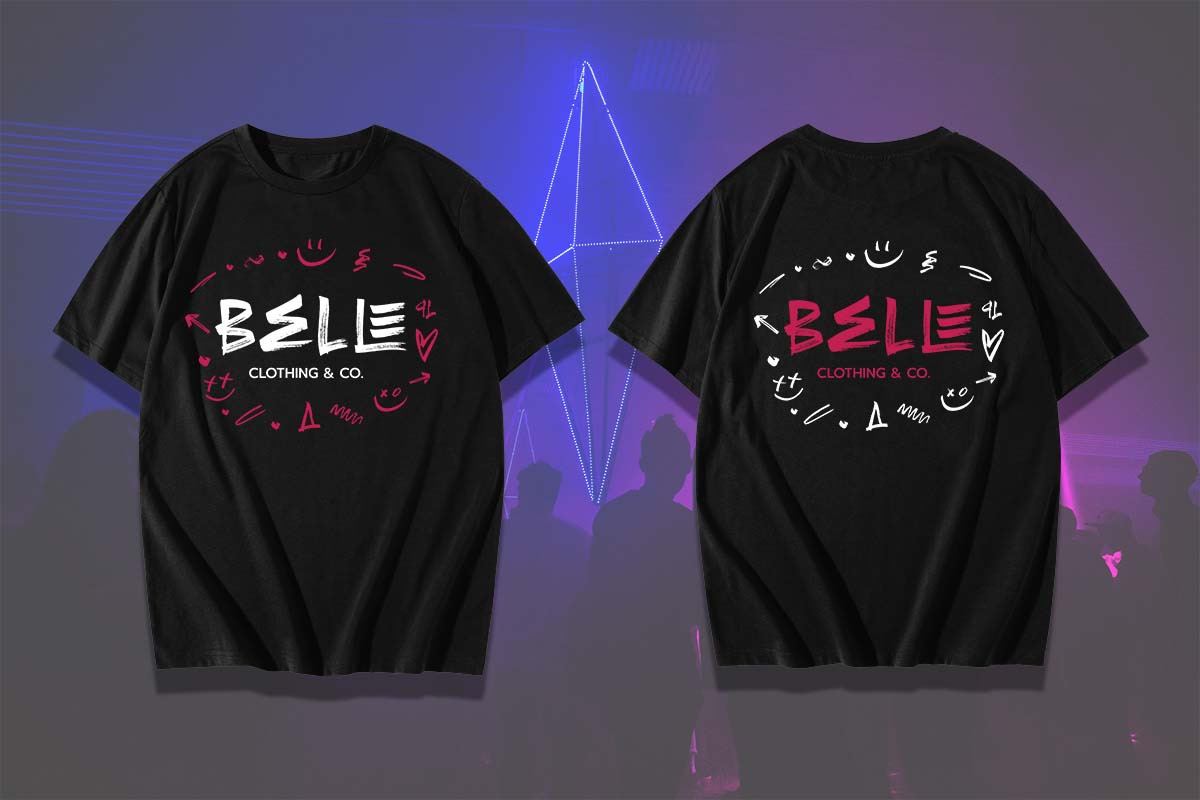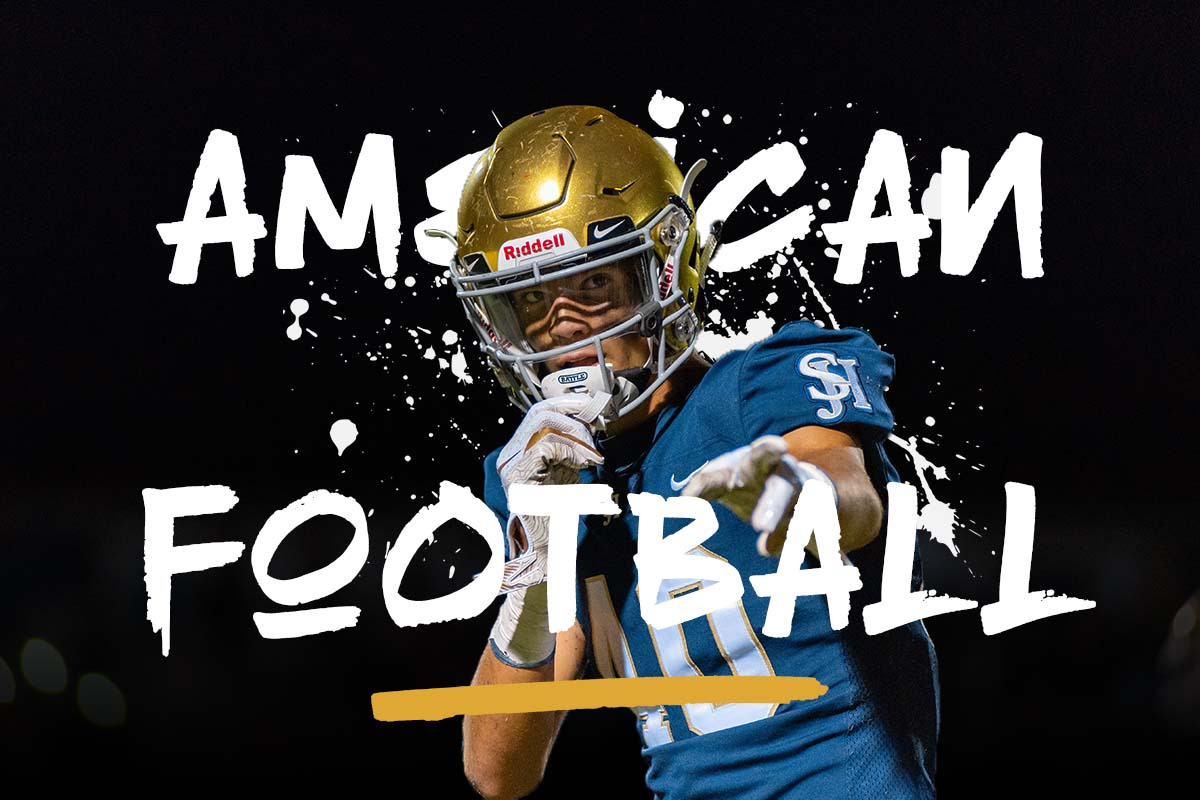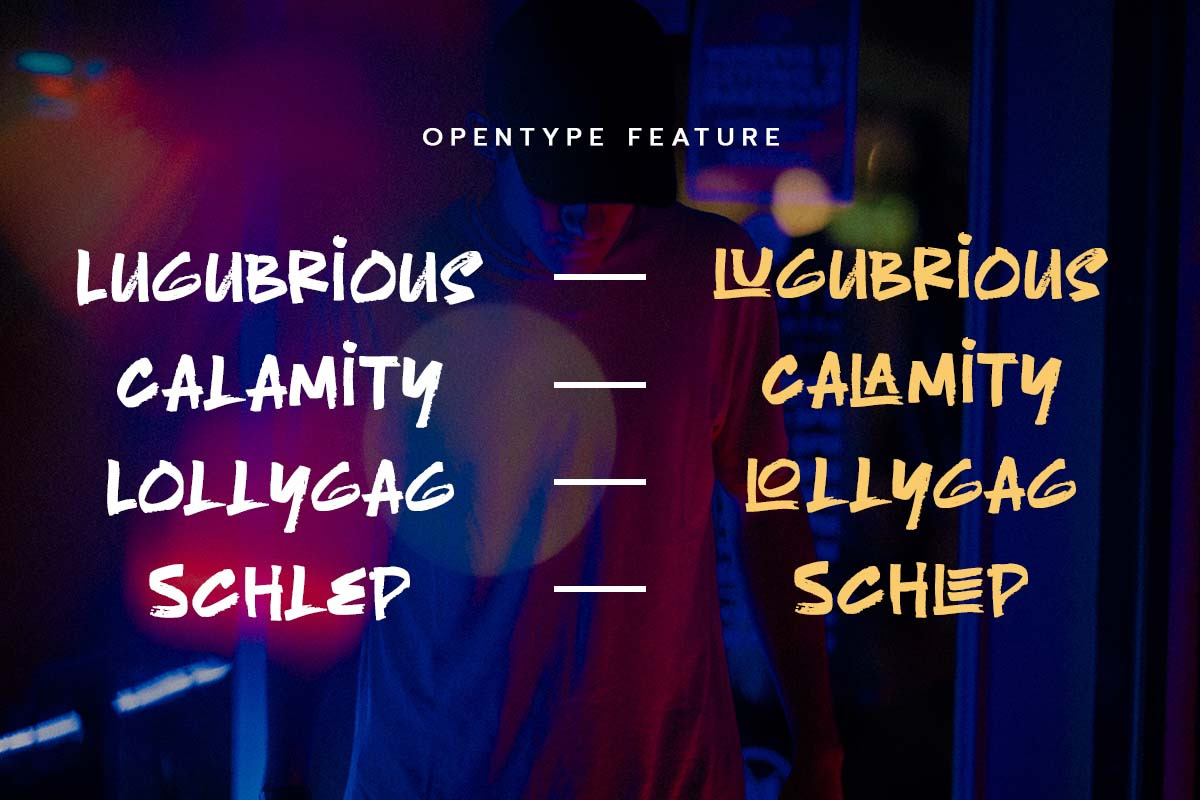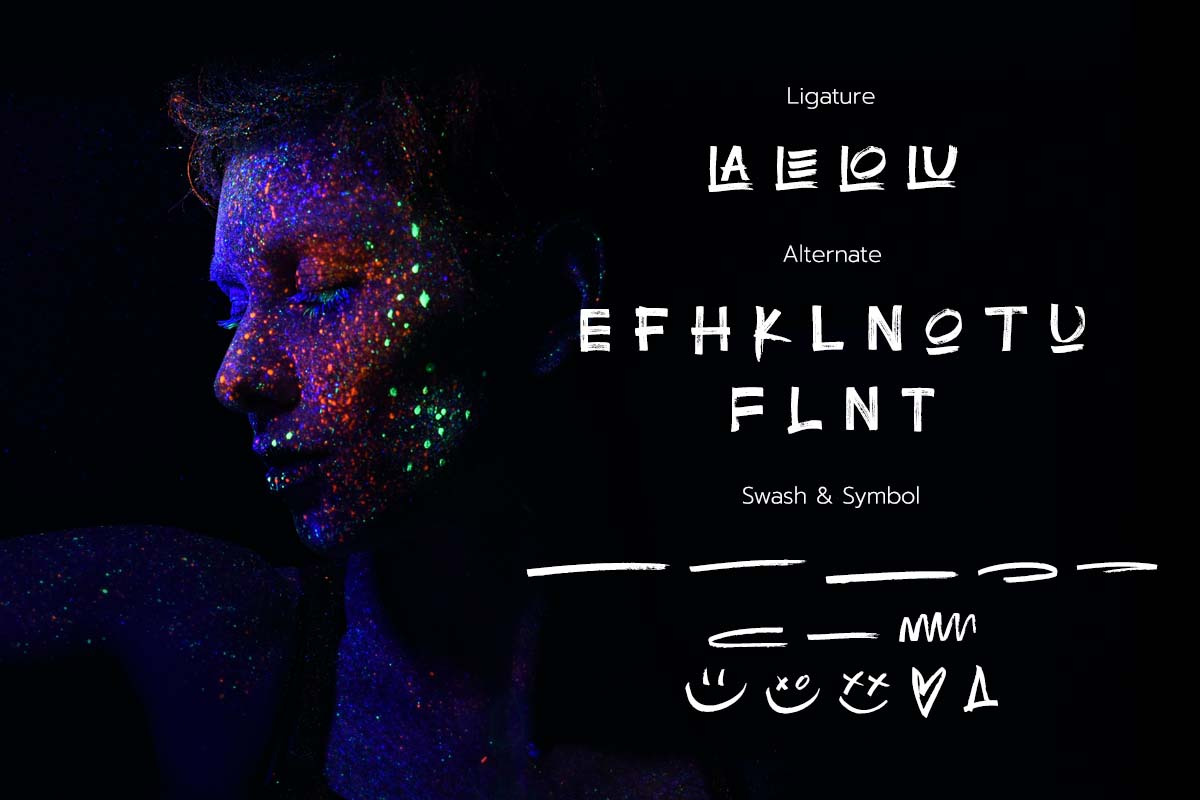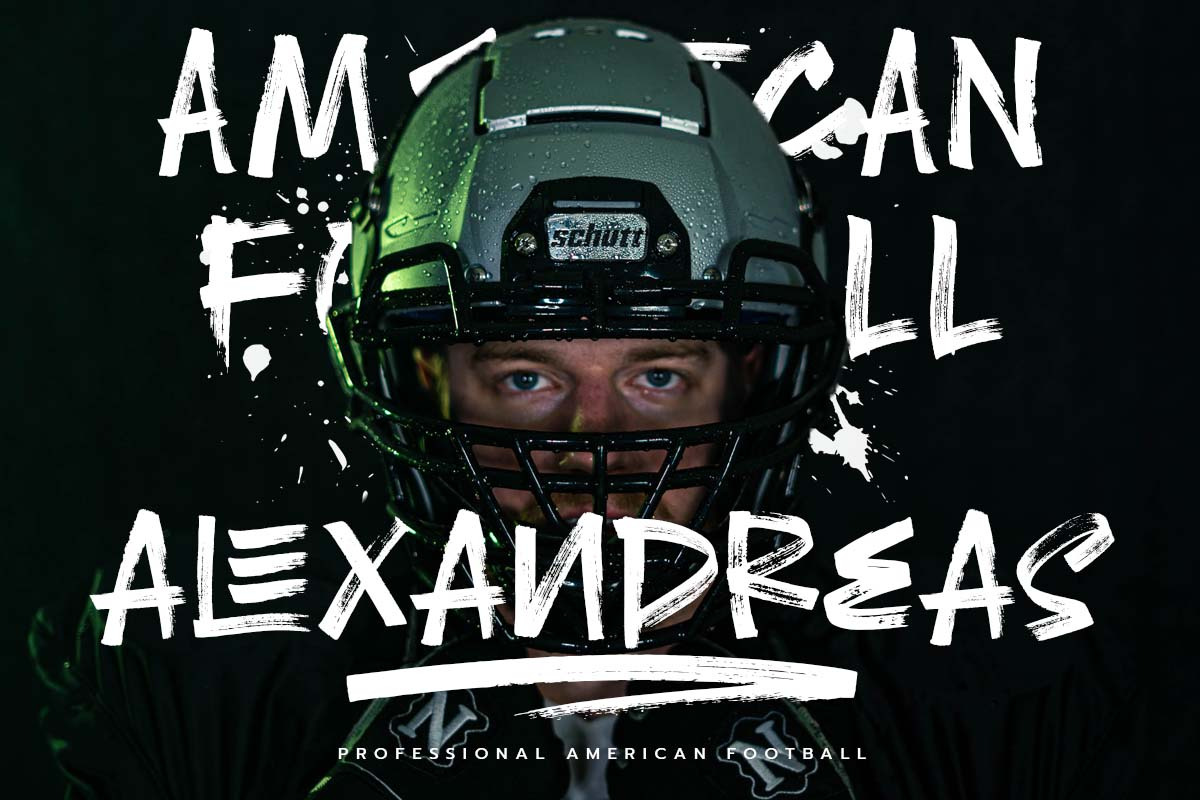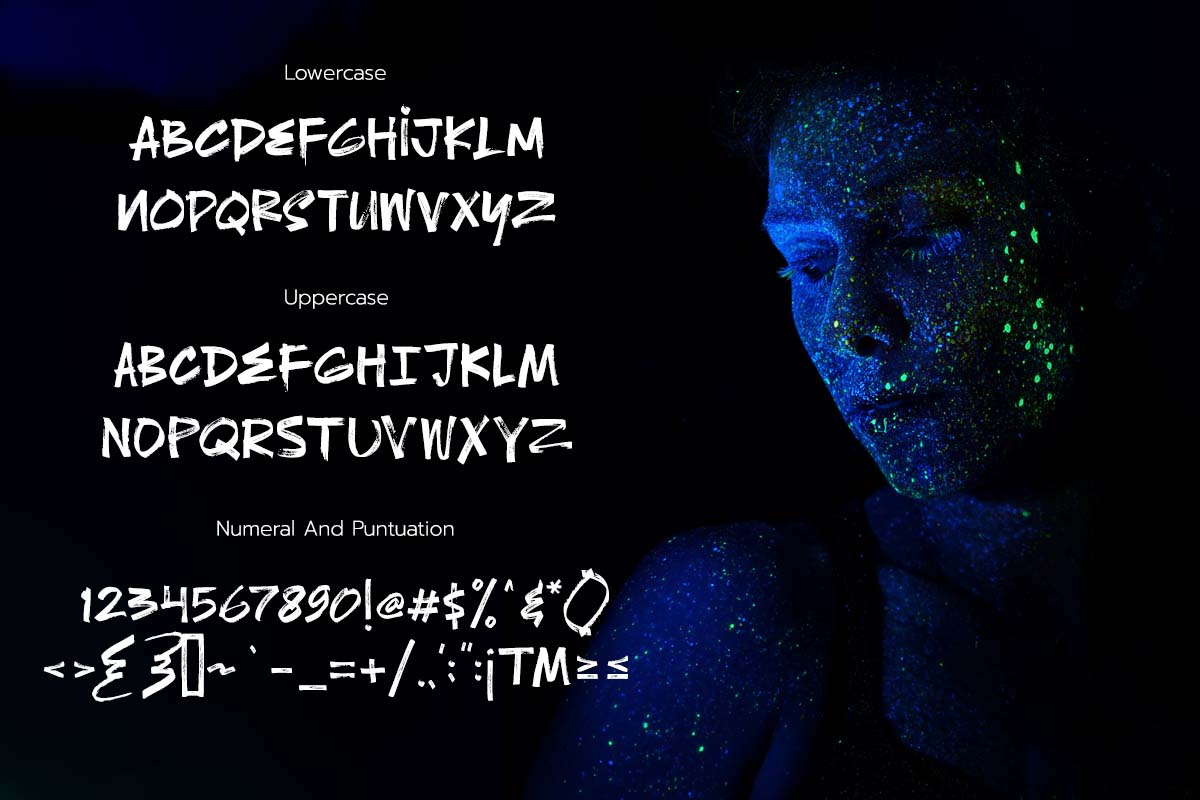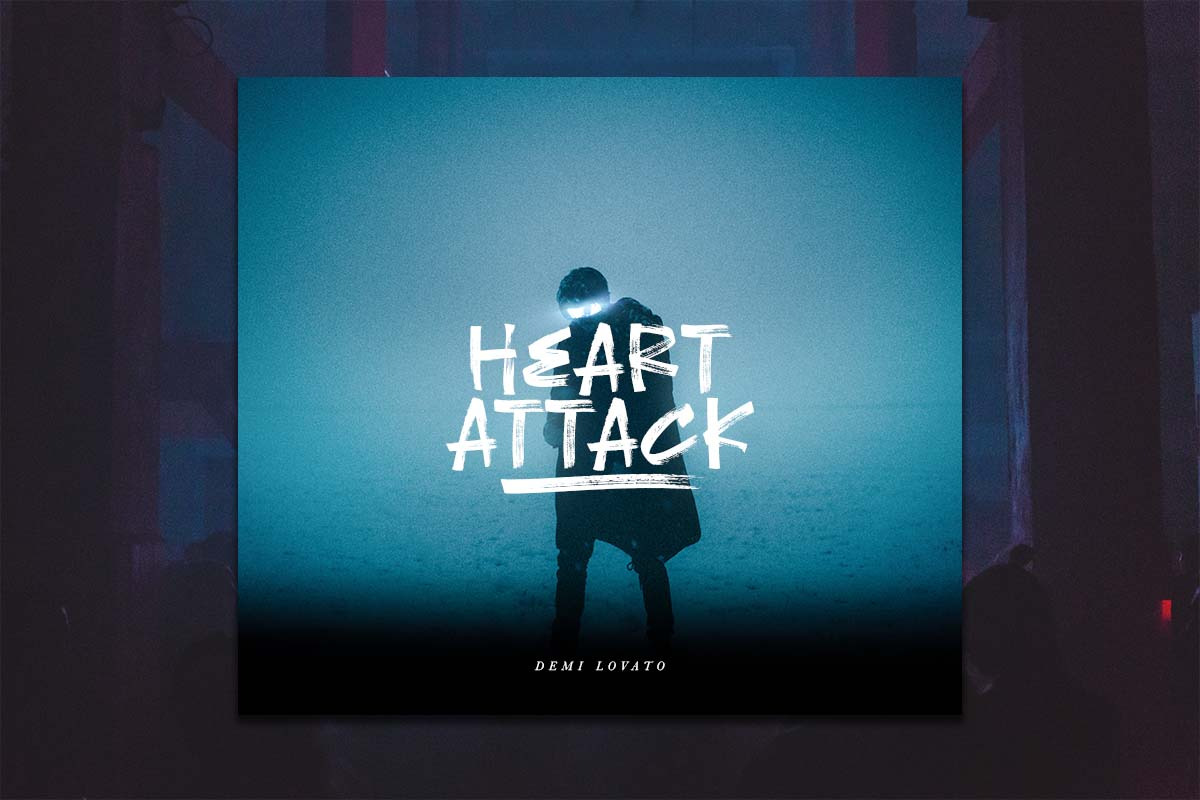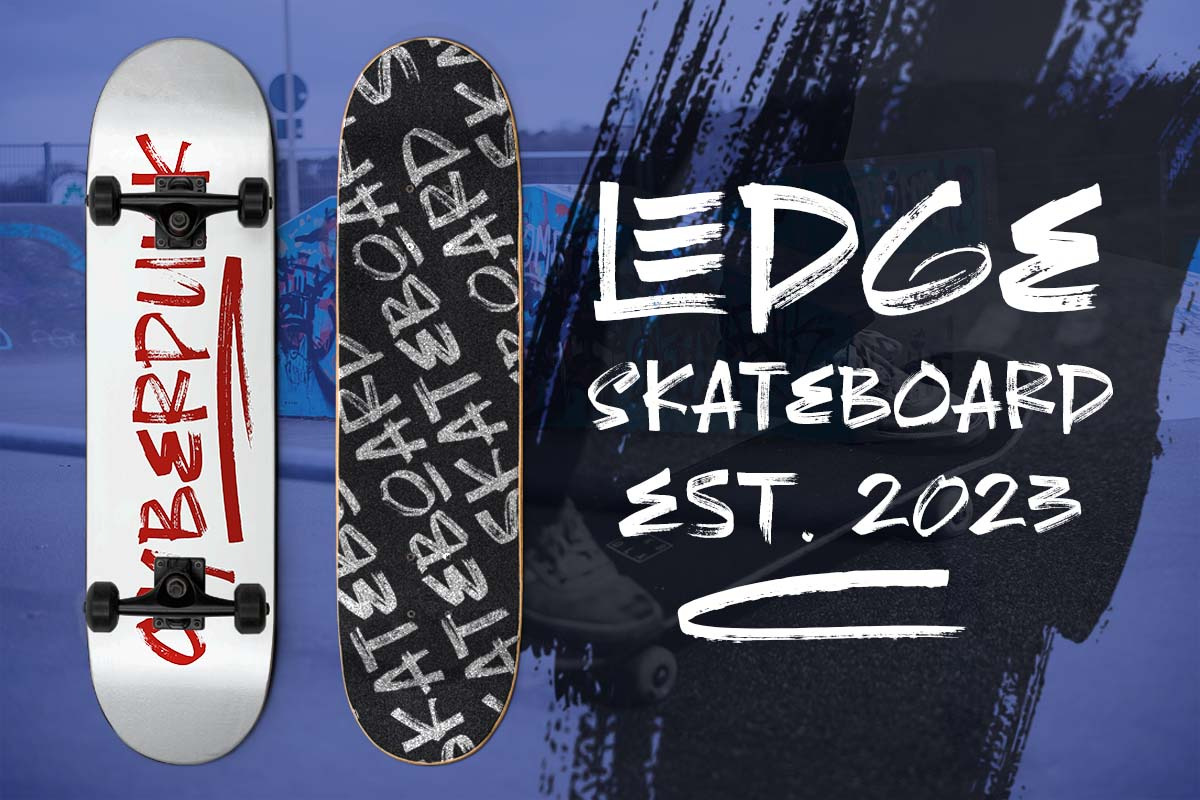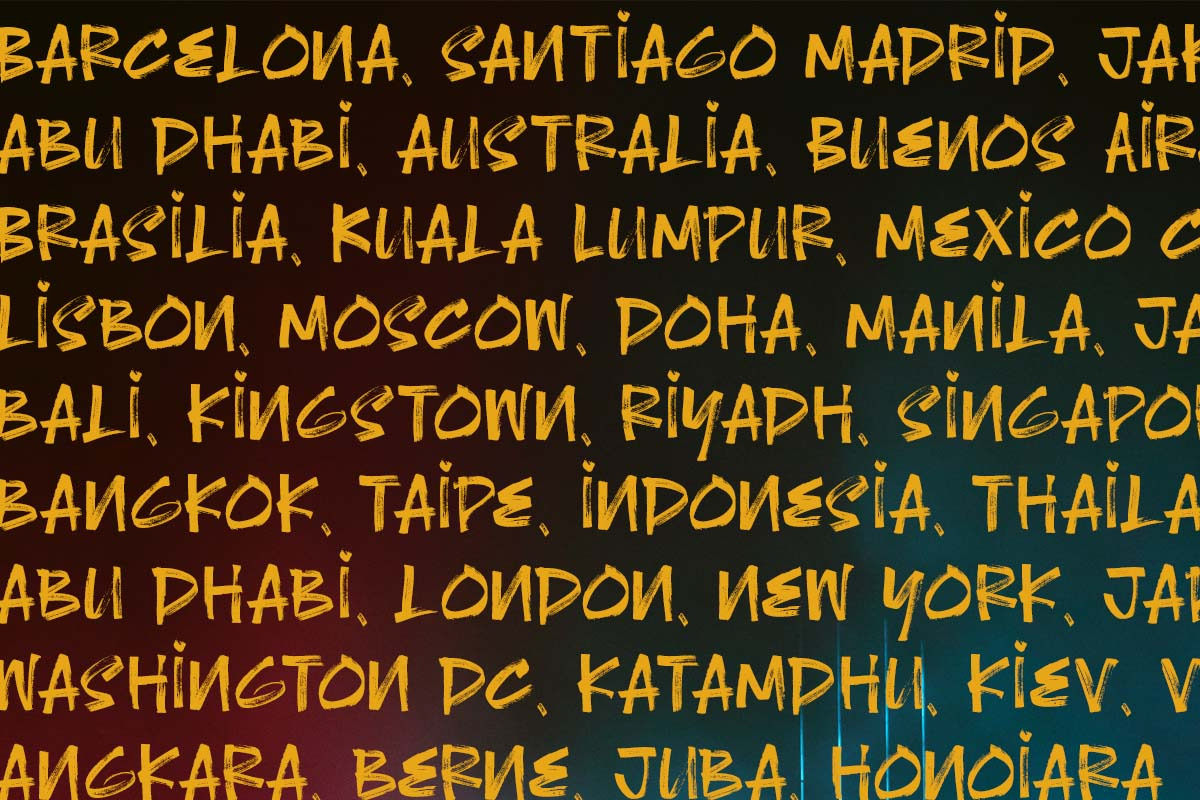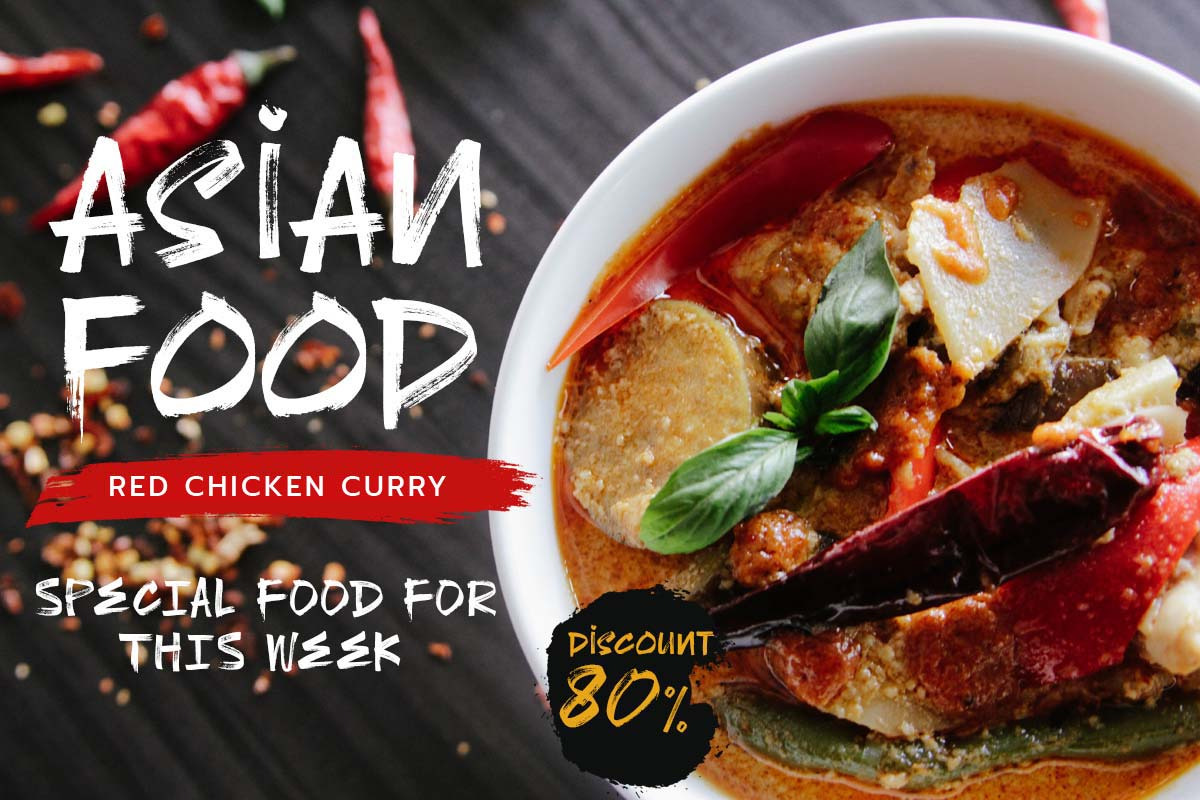
Roxy Marker Font by Scratch Design | Creative Market
Play your imagination in design with this original marker font, ROXY! This bold, loud and proud all-caps font was hand-drawn with an accurate marker, maintaining the authentic high-resolution brush detail in each stroke. This font also includes ligatures, multilanguage, and unique swashes, making your design BOLD and outstanding in the crowd. Roxy Font will be the perfect choice for poster designs, header text, album covers, packaging, product designs, merchandise, logos, advertising & more. | Roxy Marker Font | Scratch Design